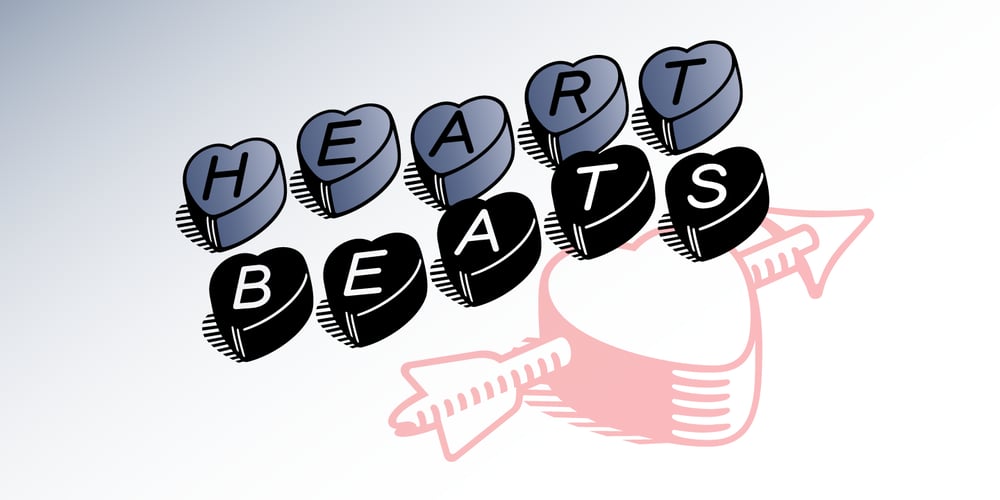
HeartBeats BH
HeartBeats BH font
HeartBeats BH Font Family was designed by Jim Lyles and published by BluHead Studio. HeartBeats BH contains 1 styles and family package options. Now, we may be posting this font close to Valentines Day, but really, it’s appropriate for any occasion where you need to express your affections for that special person, and in a most unique fashion. Heartbeats if used creatively, can actually increase the heart rate! So go ahead, take that leap you’ve been thinking about and do it in a Heartbeats!